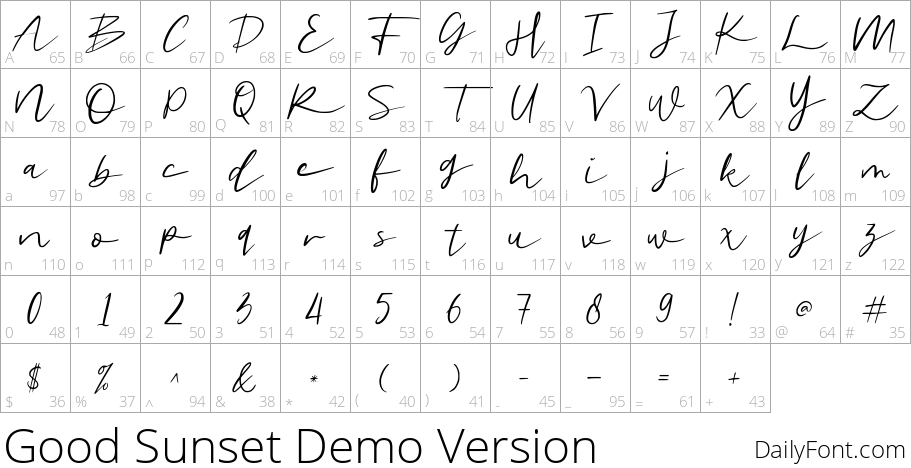
Good Sunset
Introducing Good Sunset, a beautifully crafted handwritten script font that captures the essence of warmth and creativity. With its fluid strokes and elegant curves, this font is designed to elevate your projects with a personal touch. Whether you're looking to enhance product packaging, branding initiatives, or social media graphics, Good Sunset brings a unique character that stands out and conveys emotion.
Perfect for wedding invitations, magazine layouts, or any design that demands an expressive flair, Good Sunset offers versatility without sacrificing style. It's ideal for conveying heartfelt messages or adding a friendly tone to your visual content. Elevate your design game with Good Sunset and make your projects unforgettable with its charming script style.